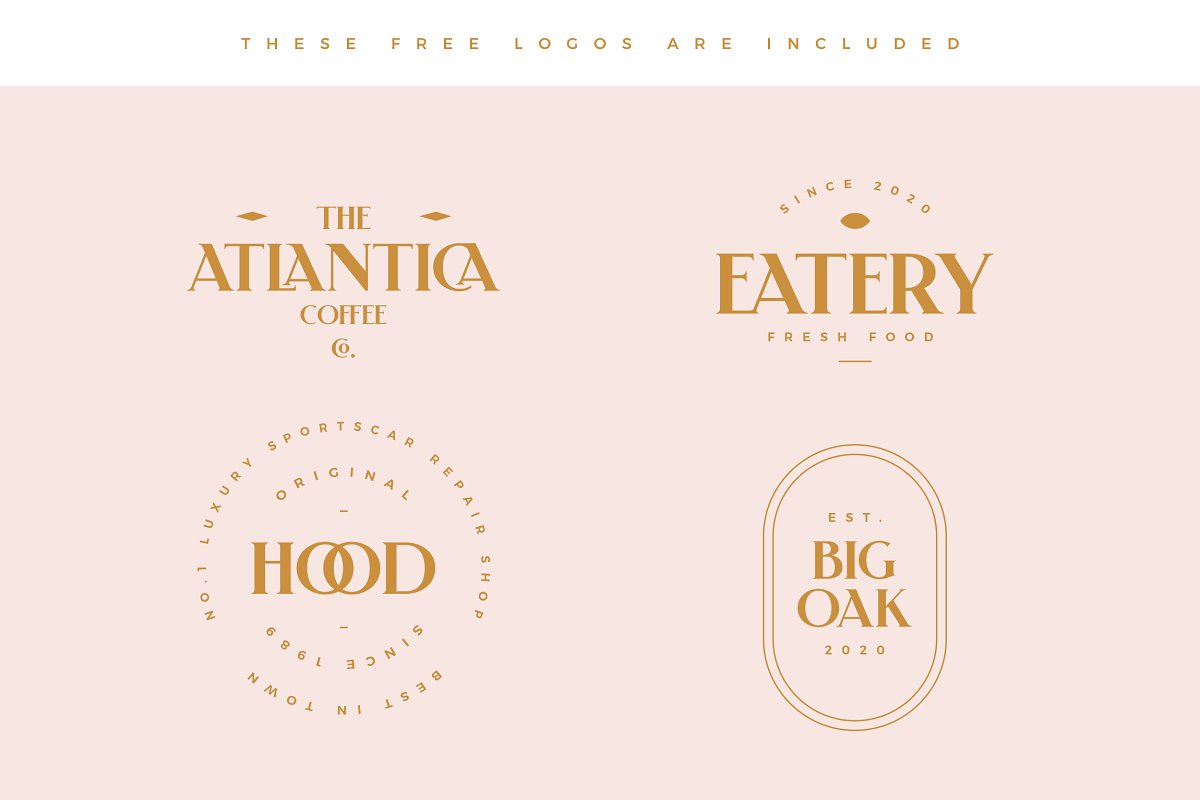
About the Askja Modern Free Logos Font
Askja – A modern, decorative serif typeface with creative ligatures, multilingual support, and 4 free logo templates, Askja is a unique, decorative typeface, loosely inspired by Art Nouveau but with a fresh & modern approach, It features large upper serifs, combined with a large x-height and numerous creative non-standard ligatures incl, nested or overlapping caps
Askja is best used for projects with big type and lots of character, Combine this font with sans serif typefaces for a modern aesthetic, 🎁 FREE GOODIE 🎁We made sure to include 4 free vector logo templates for you – fully customizable, Simply change the text and you’re ready to go
com for sweet deals and free goodies, ;)FEATURESUppercase charactersLowercase characters4 free logo templates – fully customizable46 ligatures incl, nested or overlapping caps: AM, CA, CC, DC, DO, EA, EN, ET, EV, EW, FF, FT, KA, LA, LE, LI, LL, LU, NN, OC, OG, OO, OQ, RA, TE, TT, TY, VA, ff, ffb, ffh, ffi, ffj, ffk, ffl, fft, fh, fi, fj, fk, fl, ft, ttBig range of numbers, symbols & punctuationComprehensive language support including: Albanian, Basque, Catalan, Croatian, Danish, Dutch, English, Finnish, French, German, Hawaiian, Icelandic, Indonesian, Irish, Italian, Latvian, Lithuanian, Norwegian, Polish, Portuguese, Romanian, Slovenian, Spanish, Swedish, Turkish, Welsh & moreFor the pros: individual kerning & extensive range of charactersWHAT’S INCLUDEDAskja